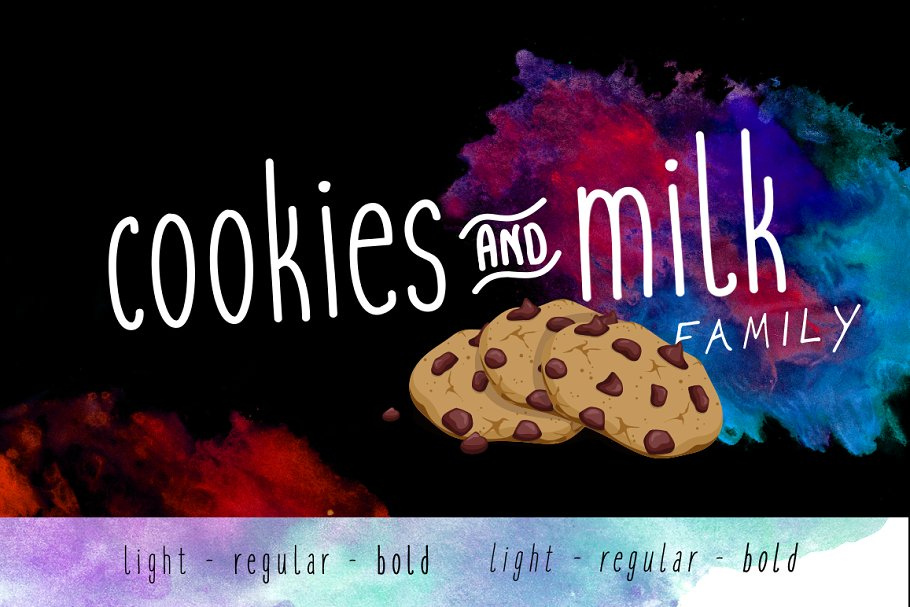
Cookies and Milk Family Font
This delightful typeface family is perfect for children's book illustrations, daycare center branding, toy store signage, ice cream parlor menus, family restaurant materials, playground equipment graphics, kids' birthday party invitations, and wholesome family product packaging. Cookies and Milk Family Font brings cozy comfort to any project where family warmth and childhood nostalgia need to be conveyed through friendly typography.
What makes Cookies and Milk Family Font so exciting is its perfect embodiment of home-baked comfort and family togetherness. The font features soft, rounded letterforms with gentle curves that evoke the warmth of fresh-baked cookies and the comfort of childhood memories. Each character has been lovingly crafted to maintain excellent readability while expressing genuine sweetness and family-friendly appeal. The typeface's nurturing personality creates immediate feelings of safety and happiness, making it perfect for brands and projects that want to communicate care, comfort, and wholesome family values through their visual identity.
The Cookies and Milk Family Font includes complementary style variations: Regular, Bold, Script, and Decorative versions. This heartwarming collection allows designers to create layered compositions and playful layouts that capture the essence of family bonding and childhood joy. Each style maintains the font's comforting character while providing different personality traits for various family-oriented applications and cozy design themes.
Whether you're developing family business branding, creating children's educational materials, or designing heartwarming marketing campaigns, Cookies and Milk Family Font Free Download provides the genuine comfort that resonates with parents and children alike. Its nurturing appeal makes it ideal for family restaurants, childcare services, educational publishers, and wholesome food brands. The font's trustworthy nature ensures emotional connection in both print and digital applications, while its versatile design adapts beautifully to vintage, modern, and traditional family-focused aesthetics.
This heartwarming typeface family represents the perfect choice for designers who understand the power of comfort and nostalgia in meaningful family-centered communication.